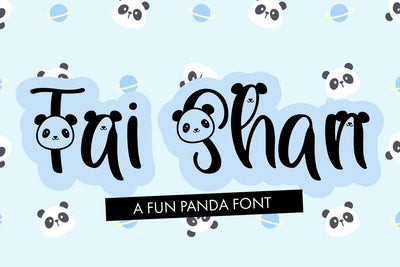
Tai Shan
Tai Shan - Handwritten Panda Font
Tai Shan is a fun and playful Panda themed handwritten font. You will get one set of stylistic alternates for upper case letters and one set of alternates for the lower cases. This font is perfect for all you Panda lovers and would look especially cute on DIY projects for kids.
You can access the standard font via A-Z and a-z. The remaining 2 designs are available as stylistic alternates for upper cases and lower cases. This font can be used for anything such as T-Shirt designs, phone cases, greeting cards, invitations, mugs and so much more! Be creative but most importantly have fun!
- Tai Shan - Comes with Uppercase A-Z and lowercase a-z letters, 0-9 numbers, stylistic alternates, limited punctuation and supports Western European Languages